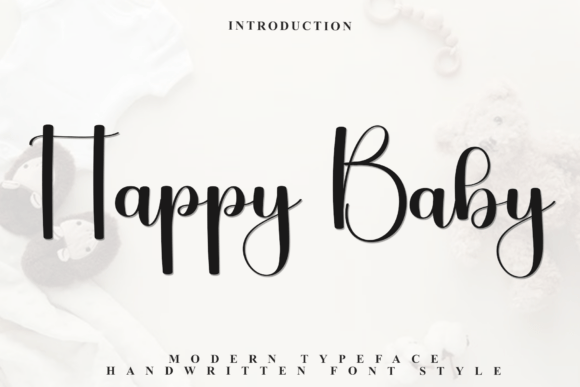
The Birth of a New Design Era: Introducing Happy Baby Font
Remember the thrill of discovering a new font that sparks creativity and sets your imagination ablaze? For designers, this moment is pure magic. It’s the moment when a simple typographical discovery transforms into a masterpiece. And that’s exactly what the Happy Baby Font is – a beautiful and eye-catching font that brings a soft, unique touch to your designs.
With its distinctive strokes and special character, the Happy Baby Font is designed to be meaningful and versatile for future use. Perfect for design projects, crafts, and other creative works, this natural font style is ideal for a wide range of products. Whether you’re a seasoned designer or a budding artist, the Happy Baby Font is sure to enhance your designs and make them appealing to many audiences across different artistic and creative fields.
Key Features of Happy Baby Font
- Character Set: The font includes a comprehensive set of characters, including uppercase and lowercase letters, numbers, punctuation marks, and special characters, making it suitable for various applications.
- Unique Characteristics: Happy Baby Font features a playful and whimsical design, with rounded edges and a friendly tone, making it ideal for children’s books, educational materials, and family-friendly content.
- Style Variations: Happy Baby Font comes in multiple styles, including Regular, Bold, Italic, and Bold Italic, providing users with flexibility and creative freedom.
Happy Baby Font Review
Overall, I think the Happy Baby Font is a cute and playful addition to any design project. The font’s rounded edges and bubbly feel make it perfect for creating a fun and child-friendly atmosphere.
Here are some things that really work well for me: ✨
- Highly customizable: The font can be easily customized to fit different design needs, from logo design to web typography.
- Unique and recognizable: The font’s distinctive look makes it easy to recognize and remember.
- Wide range of styles: The font comes in multiple styles, including regular, bold, and italic, which makes it easy to create a cohesive design.
However, there are a few limitations that I’ve noticed: ⚠️
- Not ideal for serious or formal designs: The font’s playful feel may not be suitable for serious or formal design projects.
- Limited legibility at small sizes: The font may become less legible at small sizes, which can make it difficult to read.
- No support for non-Latin scripts: The font only supports Latin scripts, which may limit its use in international design projects.
Overall, I think the Happy Baby Font is a great choice for designers who want to add a playful touch to their projects. While it may have some limitations, its unique look and high customizability make it a valuable addition to any design toolkit.
To get the most out of the Happy Baby Font, try using it in combination with bold or italic text to add contrast and emphasis. You can also experiment with different font sizes and colors to create a unique look.
The Happy Baby Font is perfect for creating playful and eye-catching designs for:
- Birthday invitations and party decorations.
- Children’s books and educational materials.
- Marketing and advertising materials for family-friendly brands.